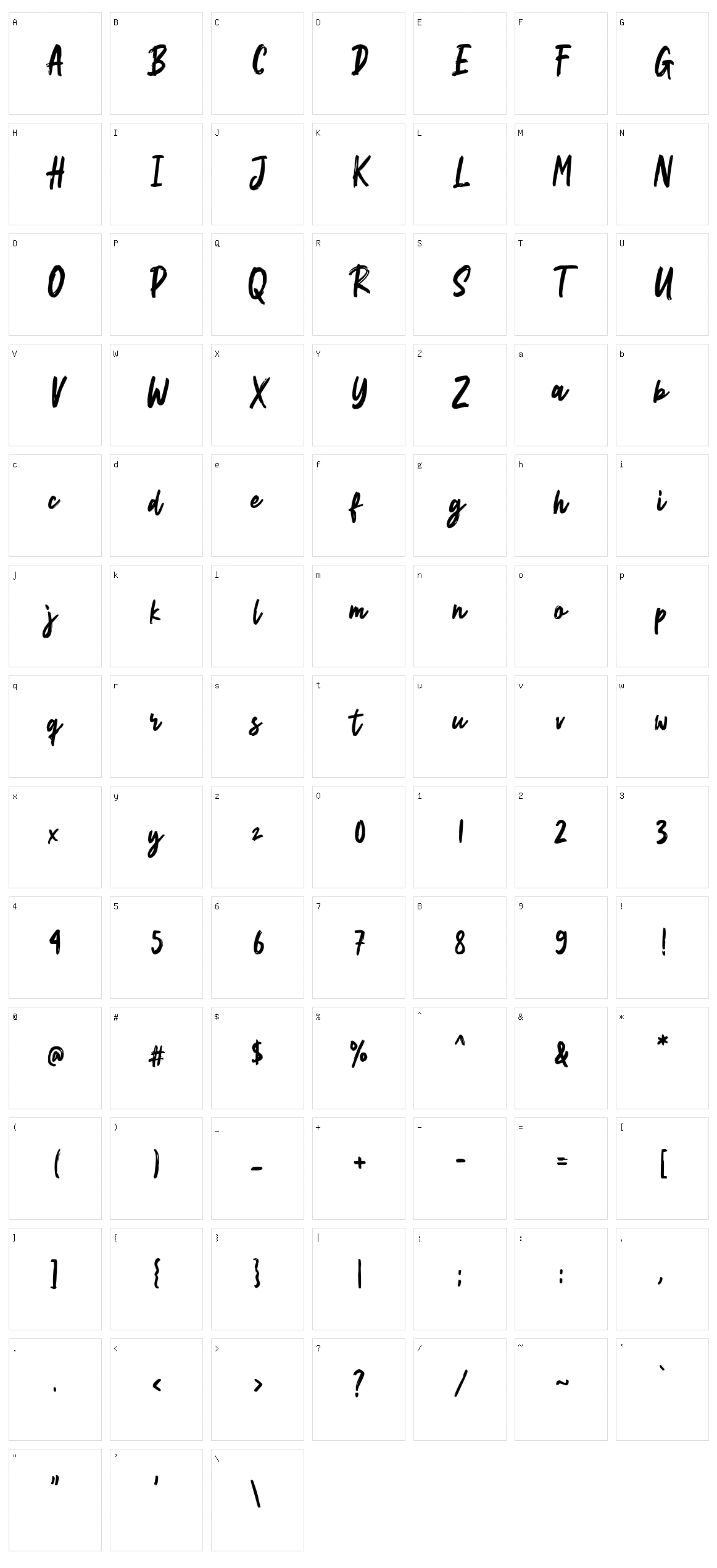
The free font Bintton is carefully designed by Weape Studio, showcasing a thoughtful balance of creativity and usability and falls under the Script font style. When you download the ZIP file, it contains only 54.46 KB of font files, making it lightweight and quick to download. Please review the license details below to understand permitted usage and distribution rights. If license information is not available, we recommend using this font for personal projects only or contacting the author directly for commercial usage permissions.
Bintton â Brush Script | by Weape Design